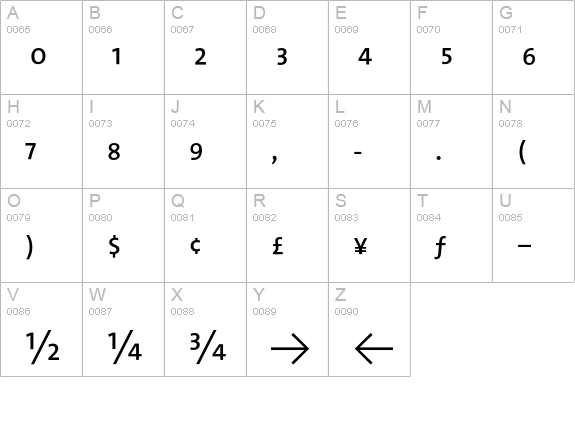
TheMix SemiLight-Expert font is an exceptional typeface that exudes elegance and sophistication. It strikes the perfect balance between professionalism and creativity, making it ideal for various design projects. This font's semi-light weight adds a touch of subtlety and grace, making it a versatile choice for both headings and body text. With its clean lines and well-defined shapes, TheMix SemiLight-Expert font is easy on the eyes, ensuring optimal readability across different mediums. Whether it's used in print or digital formats, this font never fails to captivate the reader's attention. Its modern yet timeless design makes it suitable for a wide range of applications, including branding, advertising, editorial design, and more. One of the most remarkable aspects of TheMix SemiLight-Expert font is that it is freely available to download at FontsMarket.com. This means that you can easily access and use this font in your projects without any limitations. FontsMarket.com is a trusted source for high-quality fonts, and their commitment to providing free fonts ensures that designers can have access to top-notch resources without breaking the bank. So why wait? Enhance your designs with the elegance and professionalism of TheMix SemiLight-Expert font. Download it for free at FontsMarket.com and elevate your projects to new heights.